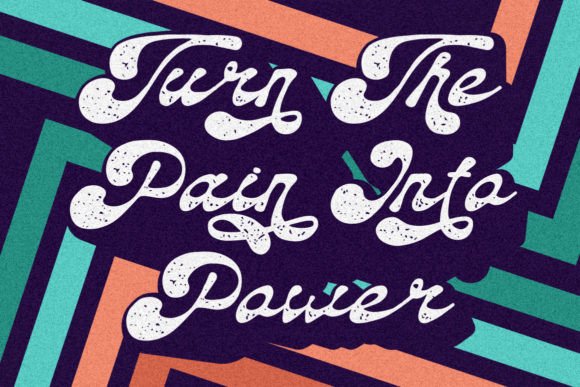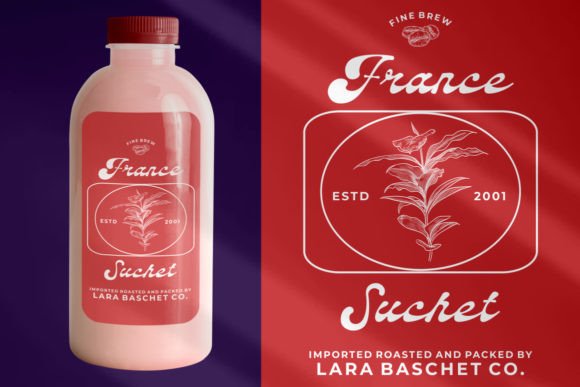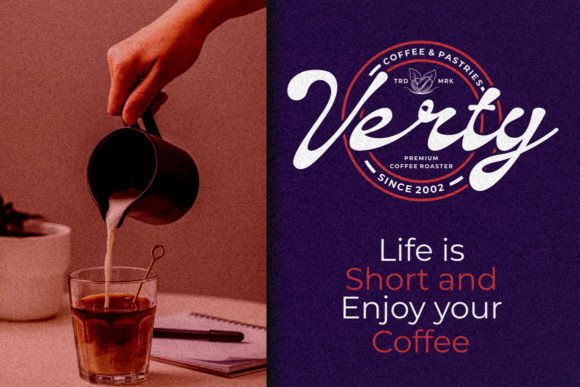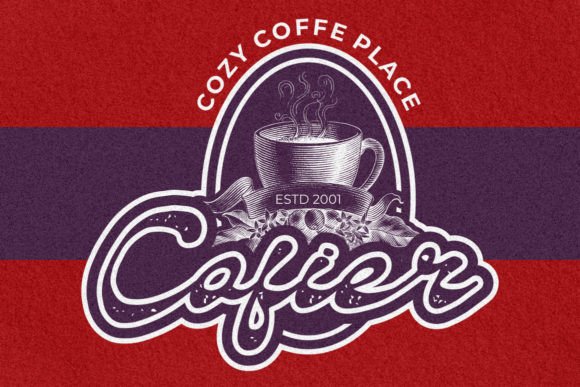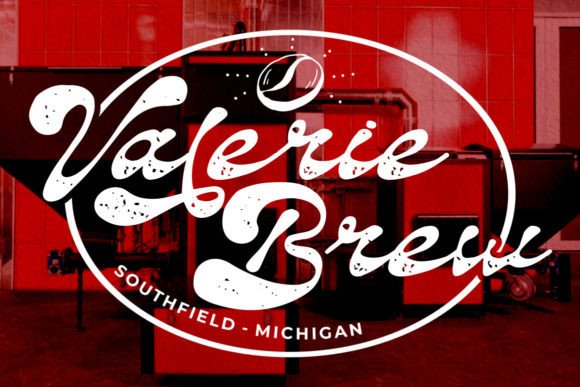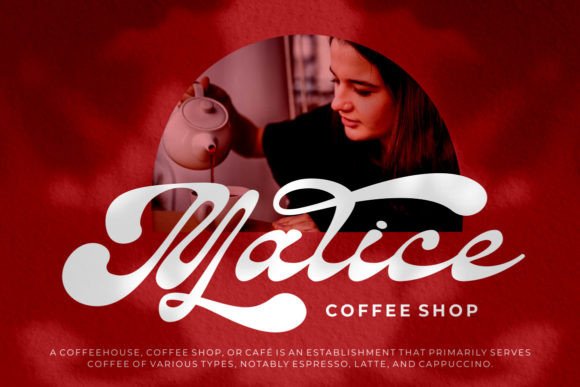
Daux Lavande Font: Elevate Your Designs with a Vintage Groovy Twist
Are you on the hunt for a font that adds a dash of retro charm to your design projects? Look no further than the Daux Lavande Font, a vintage script font that embodies the essence of groovy and bold style. This stunning display font is perfect for creating eye-catching visuals that evoke a sense of nostalgia, making it an ideal choice for designers and crafters seeking to infuse their work with a touch of vintage flair.
Unleash Your Creativity with Daux Lavande
Daux Lavande – Display Font is a versatile typeface that can be used across various design projects, including food and beverage branding, stickers, posters, and more. Its unique character and vintage charm make it a standout choice for businesses seeking to create a memorable visual impact. With Daux Lavande, you have the freedom to experiment with different design concepts, from retro-inspired packaging to bold advertising materials.
Key Features of Daux Lavande Font
- Vintage Script Style: Daux Lavande boasts a beautiful, flowing script style that adds a touch of nostalgia to your designs.
- Groovy and Bold: The font’s bold and groovy appearance grabs attention and creates a vibrant visual impact, perfect for making a statement.
- PUA Encoded: Daux Lavande is PUA encoded, which means you can access all the amazing glyphs and characters with ease.
Design Applications and Use Cases
Daux Lavande Font is perfect for a wide range of design projects, including:
- Food and Beverage Branding: Add a touch of vintage charm to your restaurant, cafe, or product packaging with Daux Lavande.
- Stickers and Labels: Create eye-catching stickers and labels with Daux Lavande’s bold and groovy style.
- Posters and Flyers: Make a statement with Daux Lavande’s vintage script style, perfect for promoting events, sales, or products.
- Social Media Graphics: Elevate your social media presence with Daux Lavande’s unique and captivating visuals.
Tips and Tricks for Working with Daux Lavande
To get the most out of Daux Lavande Font, here are a few tips and tricks to keep in mind:
- Experiment with Font Sizes: Daux Lavande looks great in large display sizes, but it can also be used for smaller text sizes to add a touch of elegance.
- Pair with Modern Fonts: Combine Daux Lavande with modern sans-serif fonts for a striking contrast that adds visual interest.
- Play with Colors: Daux Lavande looks great in bold, bright colors, but it can also be used in more muted tones to create a subtle, vintage look.
Daux Lavande Font is a versatile and captivating display font that adds a touch of vintage charm to any design project. With its groovy and bold style, PUA encoding, and multi-platform compatibility, this font is perfect for designers and crafters seeking to create eye-catching visuals that evoke a sense of nostalgia. Whether you’re working on food and beverage branding, stickers, posters, or social media graphics, Daux Lavande is sure to elevate your designs and leave a lasting impression.